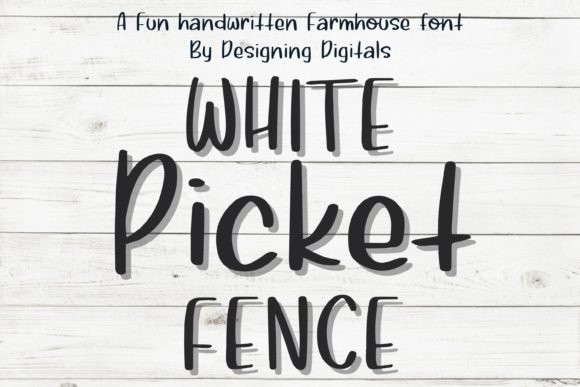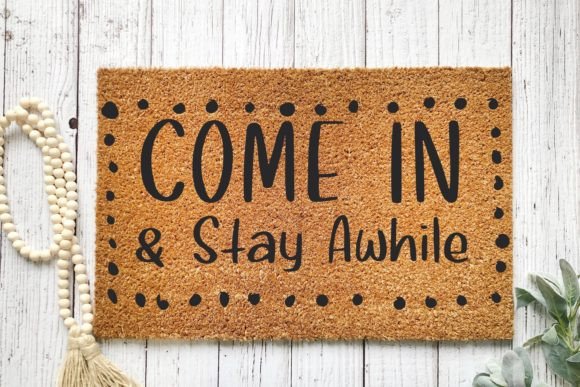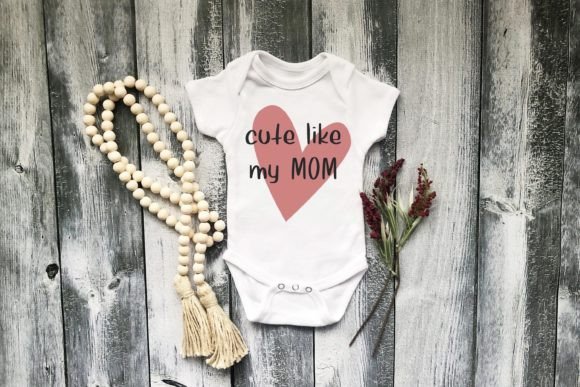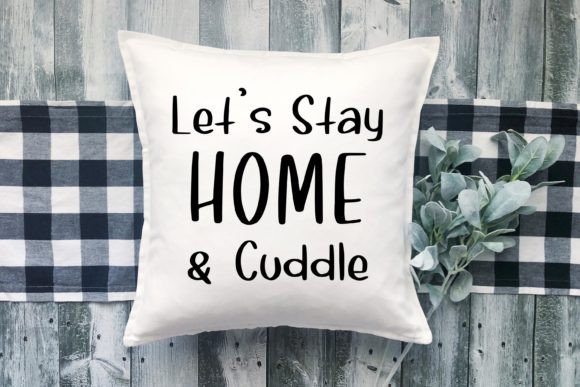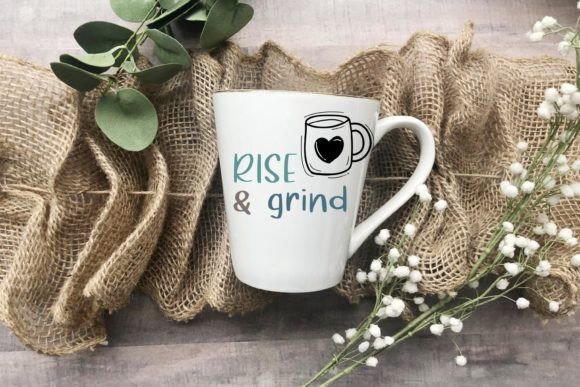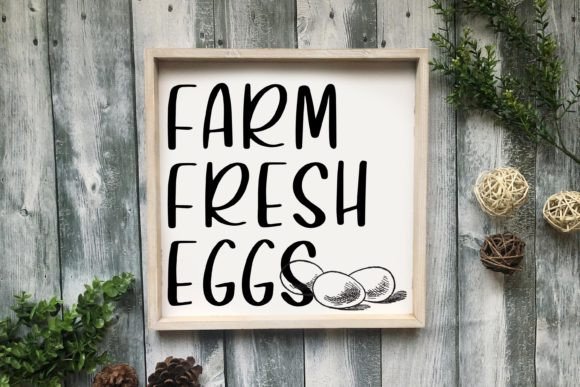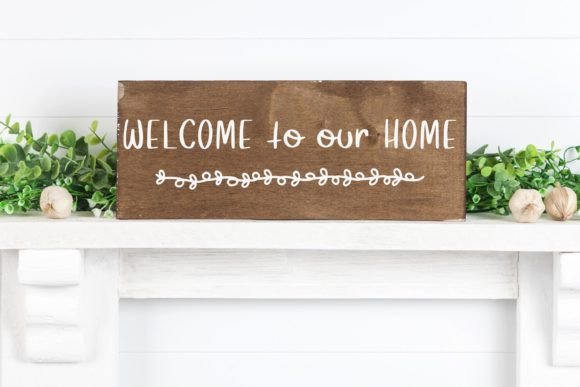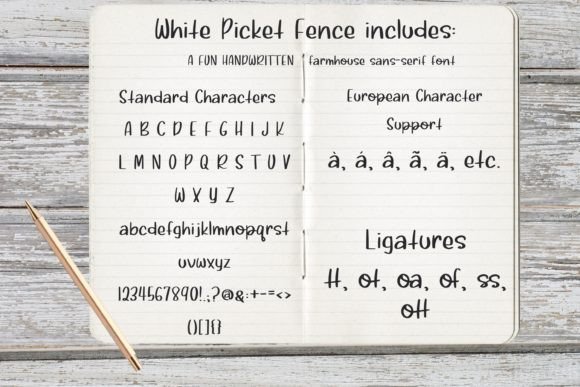
White Picket Fence Font
About White Picket Fence Font
White Picket Fence emerges as a delightful handwritten farmhouse font, adding a touch of whimsy to a variety of creative ventures. Tailored for those who appreciate the charm of farmhouse aesthetics, this font brings a playful and inviting vibe to any design it graces. With its fun and informal style, White Picket Fence is well-suited for an array of applications, ranging from farmhouse decor to Christmas-themed projects, t-shirt designs, stickers, and captivating social media content.
The font’s character is inherently lighthearted, creating an atmosphere of warmth and familiarity. Its handwritten quality exudes a sense of authenticity, making it a perfect choice for projects that seek to capture the rustic charm of farmhouse living. Whether adorning signs, banners, or holiday-themed decorations, White Picket Fence injects a sense of joy into every stroke.
Designed with versatility in mind, White Picket Fence effortlessly transitions between different mediums. Its adaptability makes it an ideal companion for crafting projects, allowing creators to infuse personality and character into their handmade creations. From personalized apparel to custom stickers, the font’s lively nature adds an extra layer of charm.
Social media platforms become a canvas for creativity with White Picket Fence. Its friendly and approachable demeanor lends itself well to social media posts and captions, giving content a distinctive touch. The font becomes a visual storyteller, turning ordinary text into a playful element that engages and resonates with audiences.
In summary, White Picket Fence is more than just a font; it’s an embodiment of farmhouse-inspired fun. Whether you’re working on seasonal decorations, personalized crafts, or social media content, this font adds a dash of joy and character to your projects. With its handwritten charm and versatile appeal, White Picket Fence is a go-to choice for creators seeking to infuse their designs with a touch of rustic playfulness.